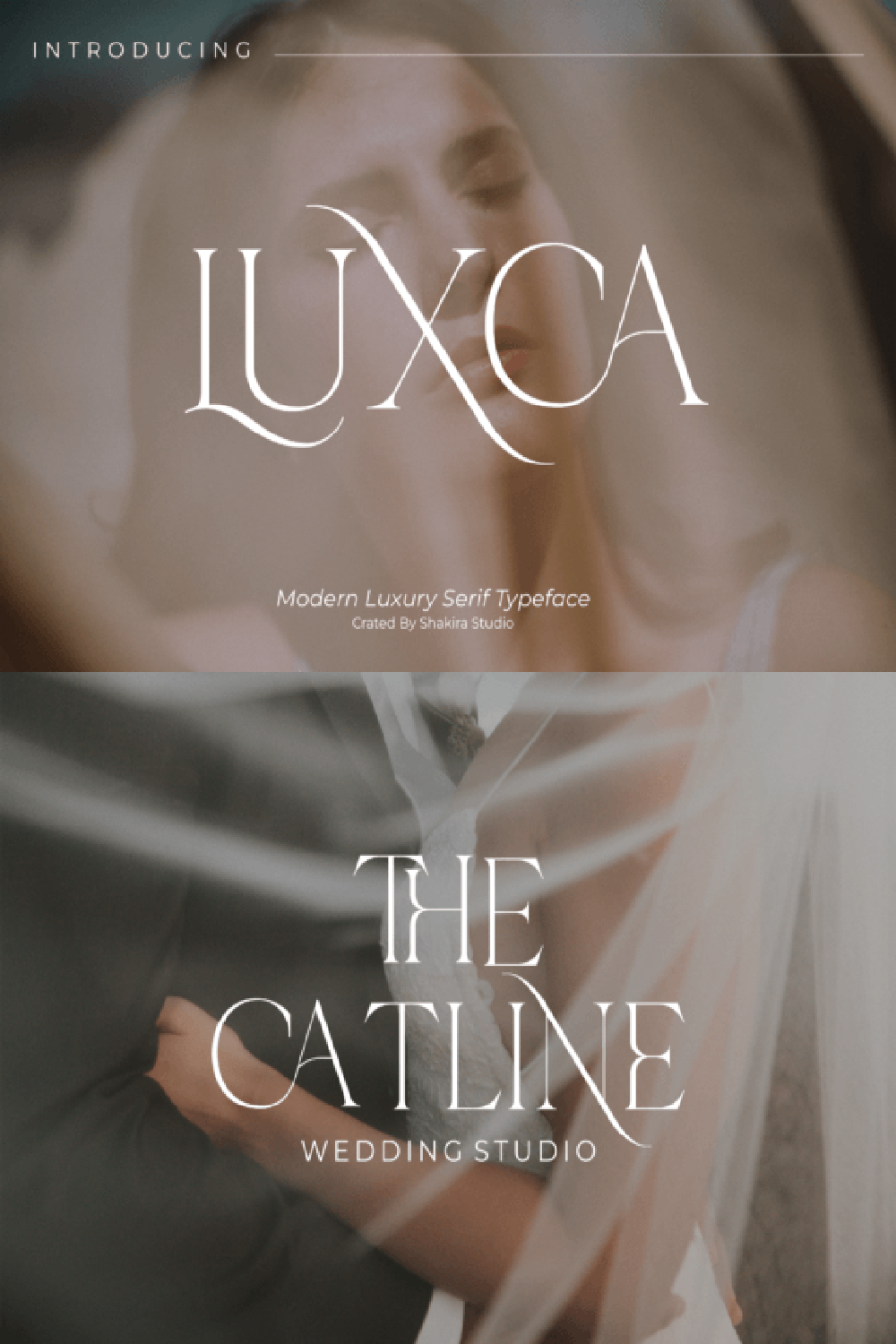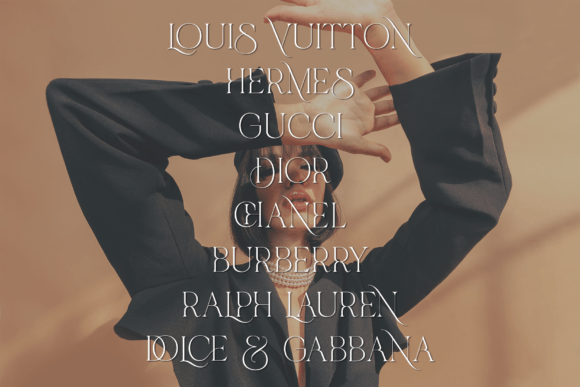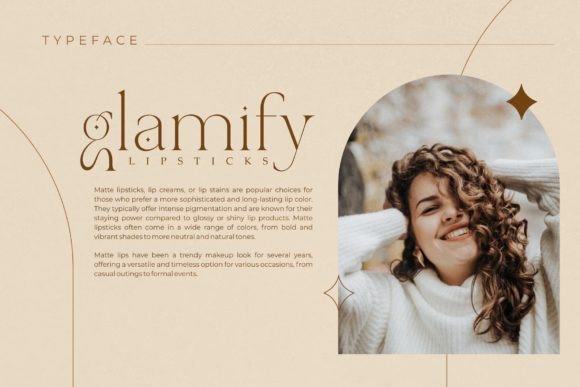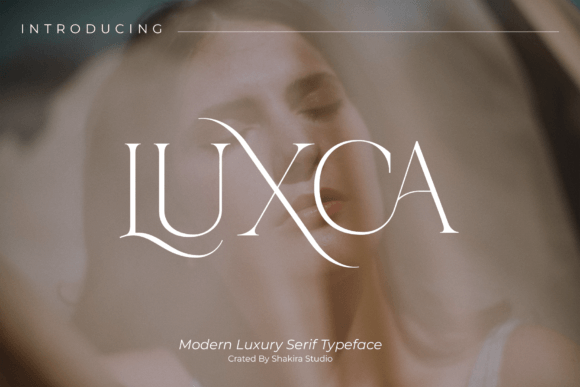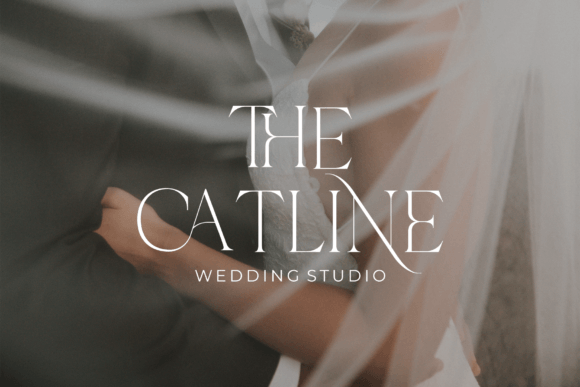
Luxca Font: Elegant Serif for Wedding & Logo Design
About the Luxca Font
From logos to headlines, the Luxca Font is the perfect choice for making a lasting impression. Introducing Luxca, a font that epitomizes modern luxury within the serif category. This typeface seamlessly blends contemporary sophistication with timeless elegance, making it the perfect choice for designers seeking to infuse their projects with an air of opulence and refinement.
Luxca’s refined serifs and balanced letterforms make it ideal for headlines, logos, and short-form text in high-end branding projects, packaging design, and select print advertisements. It lends itself well to conveying exclusivity and sophistication. However, its elegance doesn’t translate well to extended body copy or UI elements; its refined detailing can become visually overwhelming at smaller sizes.
Pairing Luxca effectively requires considering its inherent formality. A clean sans-serif like Lato or Open Sans provides a strong contrast for body text, balancing Luxca’s elegance with readability. For a more playful yet upscale feel, a rounded geometric sans-serif such as Circular or a handwritten script font with subtle flourishes could work well, but should be used sparingly as accents.
Luxca projects an air of sophisticated modernity. Its personality is best described as elegant and refined, yet approachable. Brands focused on luxury goods, high-end services, or artistic endeavors would find it particularly fitting.
Luxca Font Usage Examples
Luxca Font Example